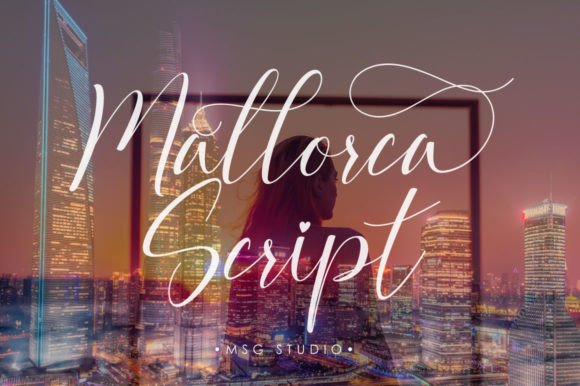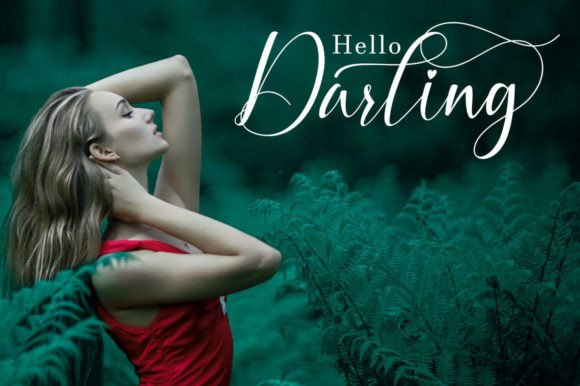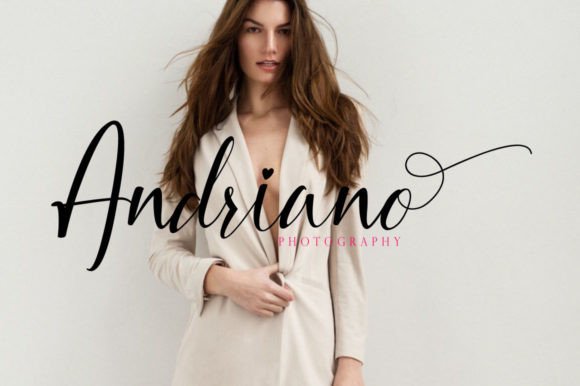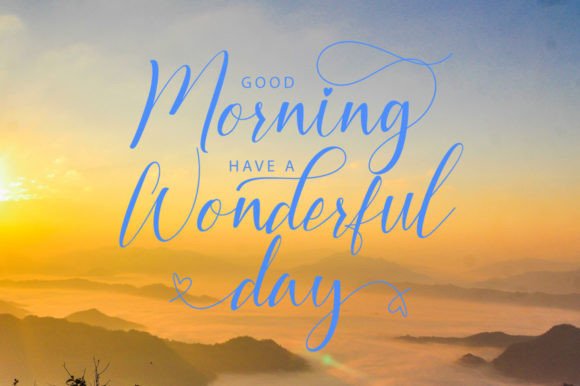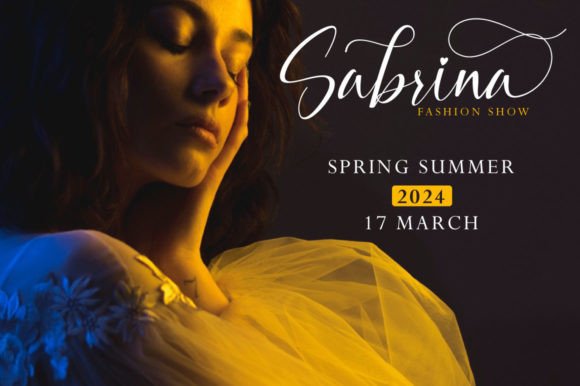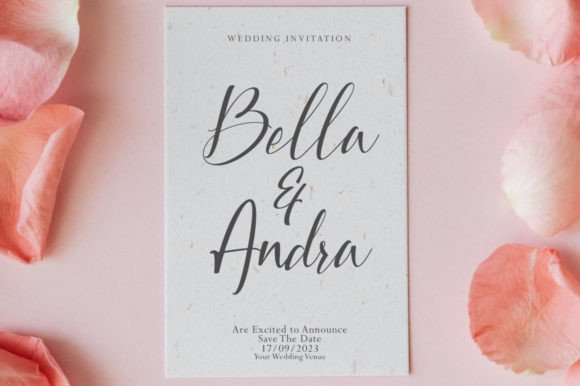
Mallorca Script Font
About Mallorca Script Font
“Mallorca Script” is described as a thin-lettered handwritten font that has been expertly crafted to become a favorite among designers. This contemporary and fresh font is well-suited for a wide range of design projects and has the potential to make your creations outstanding.
The charm of “Mallorca Script” lies in its thin-lettered style, which adds a touch of elegance and modernity to your designs. Whether you’re working on branding, invitations, posters, or any creative endeavor, this font offers a versatile and visually appealing option. It allows you to add a contemporary and fresh aesthetic to your projects.
One notable feature of “Mallorca Script” is its PUA encoding, which enables easy access to all the available glyphs and swashes. This feature enhances the font’s versatility, allowing designers to customize and fine-tune their designs with ease.
In summary, “Mallorca Script” is a thin-lettered handwritten font that excels in adding elegance and modernity to a wide variety of design projects. Its contemporary and fresh style, combined with PUA encoding, make it a valuable choice for designers looking to create visually appealing and sophisticated work. Allow “Mallorca Script” to be your creative companion, and watch how it enhances your designs, making them outstanding and stylish.